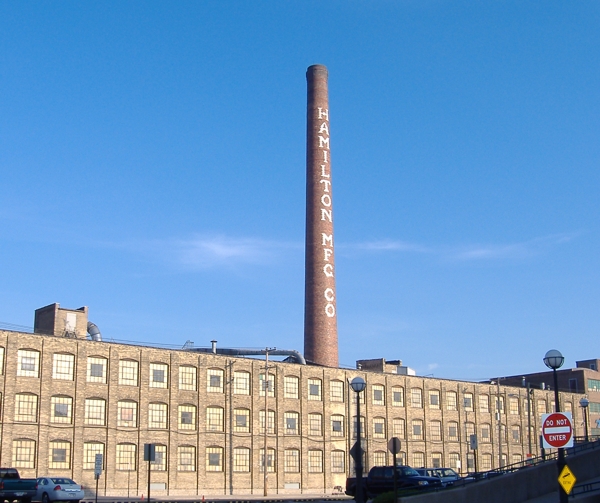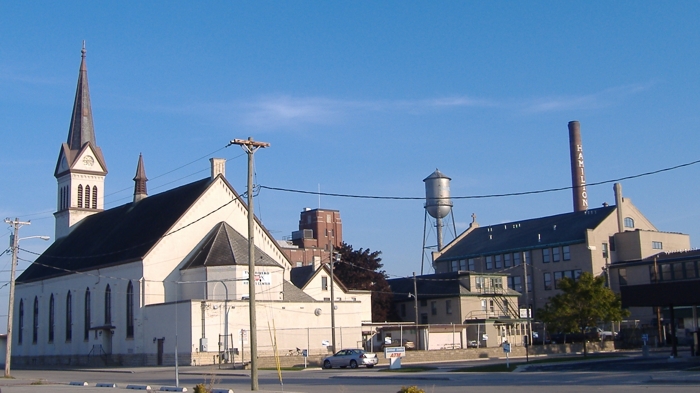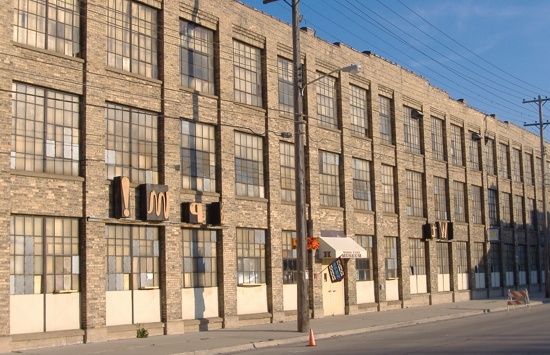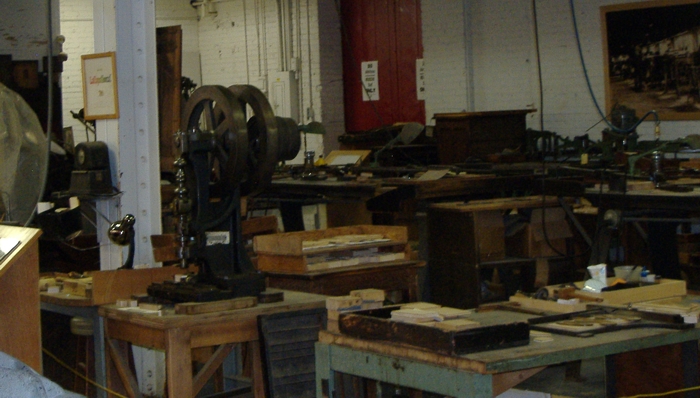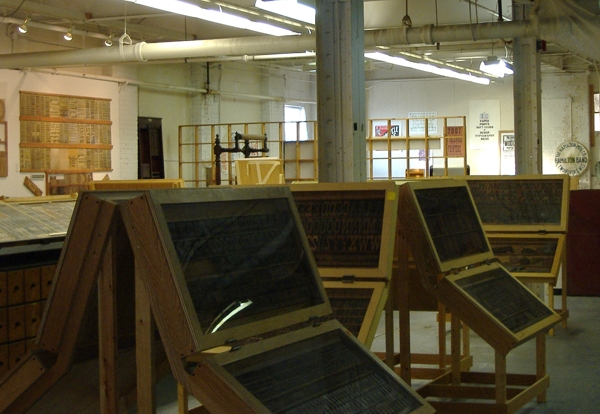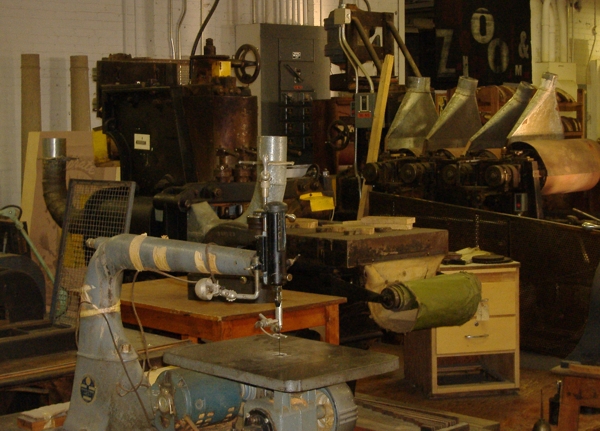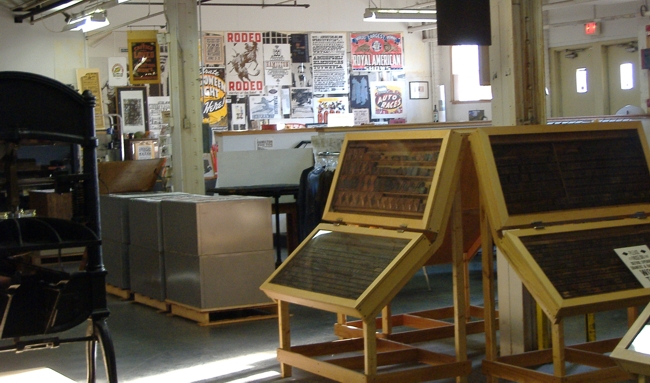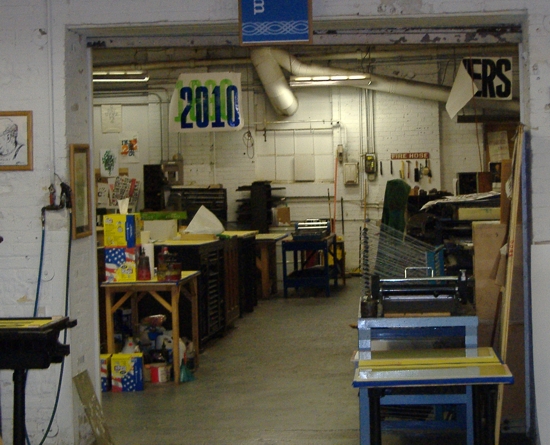
Type and fashion
Here is another related site that I learned about from Huell Howser of a print museum in Carson California. I want to go there the next time I'm in that area.
I have to say that as I watched the clip about Target's design crew grabbing all those many years of accumulated nostalgic art, wooden type, and block prints to stamp all over their next wave of "fashion" bargained based out sourced fabrics- my stomach kind of felt weird. And I don't think it was the patty melt I just had for lunch. Is it just me? 'cause I felt the same way when I saw King Tut's stuff and Von Dutch treated the same way. I am glad that these historical things are revered, but when they are bastardized with mass marketing it feels like something is just wrong.
Back in the '60s when you cut a linoleum block design with a speedball chisel in printing class and printed it onto your tee shirt it really gave you a sense of accomplishment. Your friend's would comment on your abilities and urge you to print one for them. But alas, they have done away with all of the shop classes. I think we grew up in luckier times.
When I went to tour the Hamilton Type Museum in Two Rivers, Wisconsin (which is about 50 miles north of Milwaukee, Wisconsin), I got lucky finding it. Seems that on that particular day there was some Art Fair a goin' on in downtown Two Rivers, and the Main Street running through town (and the fair) was blocked off.
Detour signs around the event pointed to the right...and then to the left...and if you're not careful making that left, you run smack dab into the Hamilton Type Museum.
Once inside, I was asked how I found the place? I told them about the Fair and the Detour signs, to which they replied..."that all I had to do was look for the smoke stack".
The Director of the Museum, Jim Moran, gave me a truly amazing tour of this huge place and it's marvelous exhibits.
At some point we started talking about the Target Fashion Project, how it came about, and some of the details of the deal with Target on using those woodblock images for Target Apparel.
Target Designers selected about 50 woodblock images, Jim hired a intellectual property lawyer, and a licensing deal was struck. The licensing deal is only temporary, as all the apparel printed with these designs can no longer be sold by Target after the end of 2011. The museum still and always will own the woodblock designs.
Jim explained that it was a great deal for the Museum, as it helps to pay the bills and keep the doors open.
To also help out with the financial well being of the Museum, Reprints of old Hamilton Wood Type Catalogues are sold to visitors. Along with posters, both small and large, of woodblock images and letters from their archives.
Yes Pat, it's just you. Did you feel the same way when Mike Jackson introduced his digitized from "old sources" clip art?
And before that when digitized fonts started to make the rounds? Face it Pat, we live in the "Future", where Old is New again. Some might call it recycling or going green. It's really a great way of finding a new use for an old medium. A bringing into the light of day, that which was stored away, and almost forgotten. Hallelujah! Praise the Lord! And pass the Printer's Ink!
"Bastardizing"?, in this case... I think not. The other situations, maybe. The Hamilton Type Museum needs to turn a buck somehow to stay open, unlike Hatch Show Print in Nashville, Hamilton does not have a large clientele of those needing show posters.
Check it out, it quite nice and shows how really huge the place is.
And here is a link to a public television short on the history of the Hamilton Wood Type Co.
This next link is for a movie trailer for the movie "TypeFace".
And finally, a link to another video showing some exotic wood type faces.